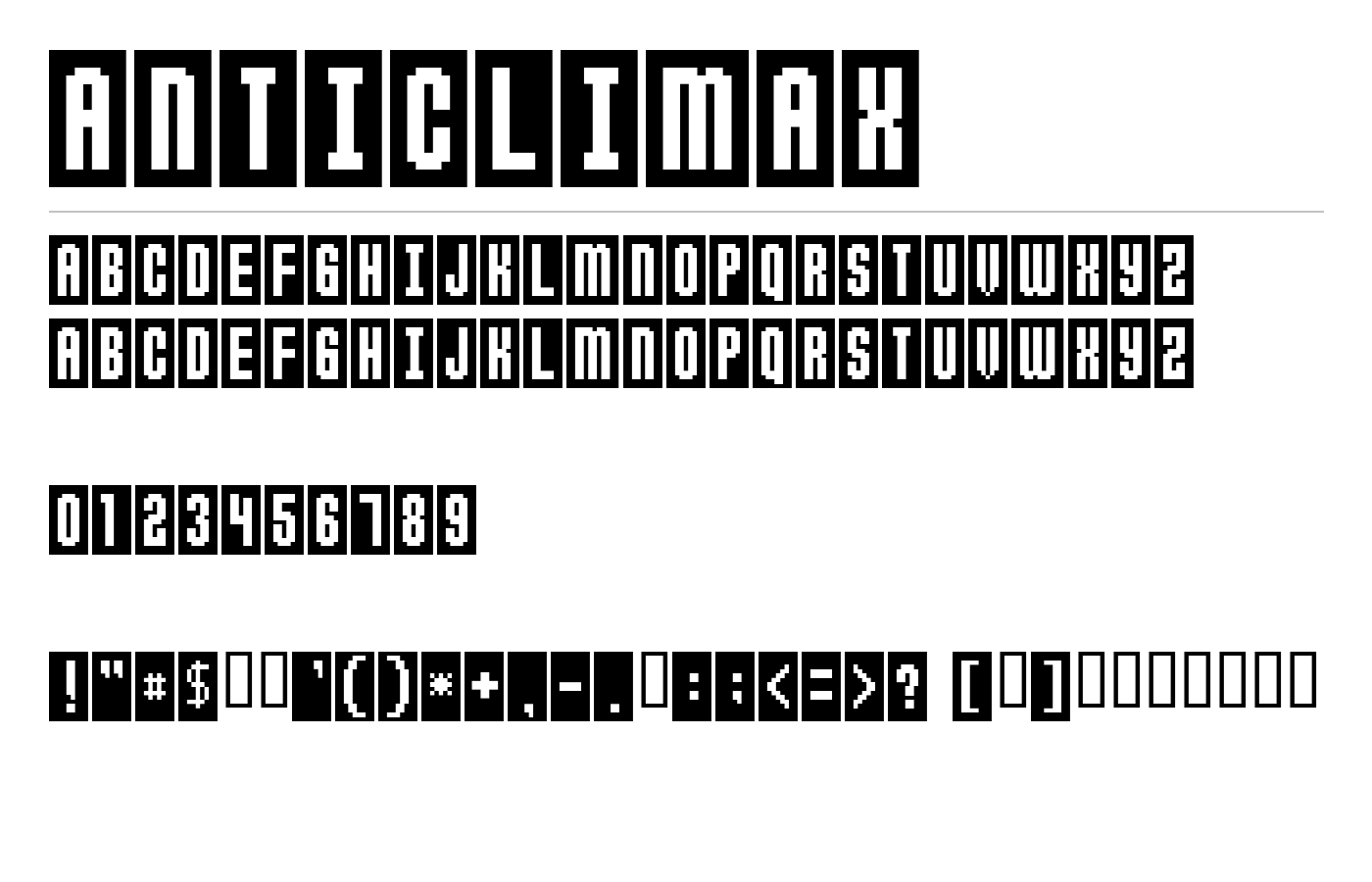
Anticlimax is a bold, condensed sans serif font with a strong geometric and modular design that gives it a digital or pixelated aesthetic. Its high contrast between thick black borders and white letterforms, combined with blocky shapes and square corners, makes it ideal for attention-grabbing headlines, retro or tech-inspired branding, and creative poster designs where a modern yet playful look is desired.
Anticlimax Font
About Anticlimax Font